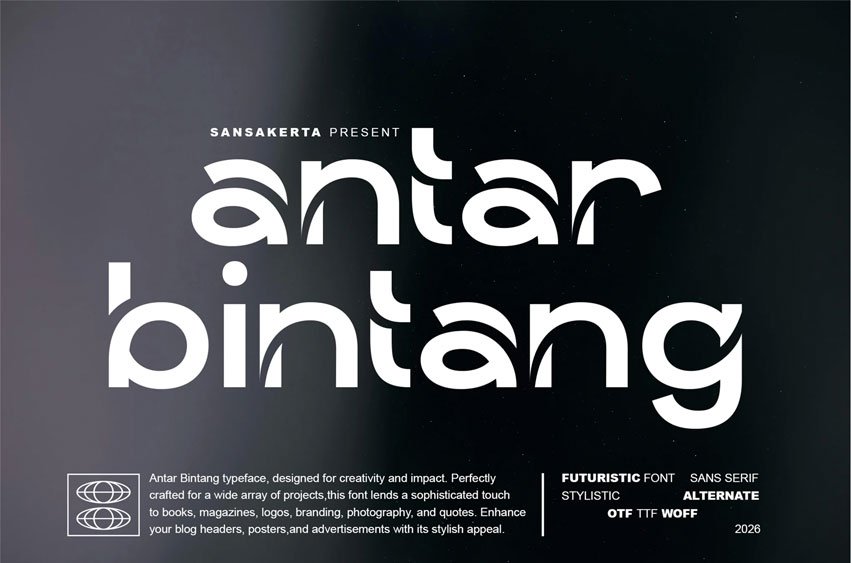
Antar Bintang Font typeface, designed for creativity and impact. Perfectly crafted for a wide array of projects, this font lends a sophisticated touch to books, magazines, logos, branding, photography, and quotes.
Enhance your blog headers, posters,and advertisements with its stylish appeal.